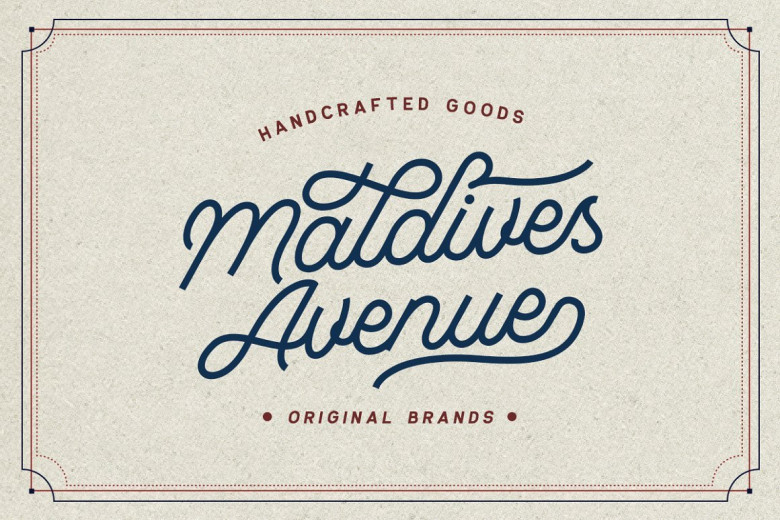
Madgue Script Font
Introducing Madgue Script Font! Madgue designed by Sarid Ezra, this is a premium font, are sold on creativemarket, but it was great, it is free today for download. This is unique monoline for you. You can use this font for making an awesome logo or whatever you want. Also this font contain ligatures, so many stylistic alternate , swash. This font is also support multi language.